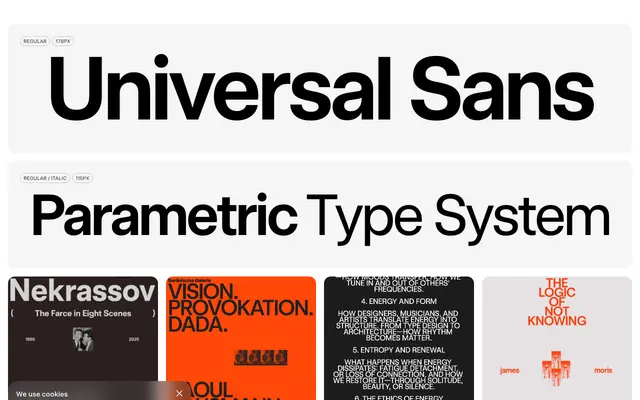
Universal Sans
A parametric sans-serif system by Briton Smith, split into Display and Text optical sizes with broad Latin language support.
Universal Sans is structured as a two-family system, with separate Display and Text cuts each offering 12 styles, designed to maintain precision across contexts from headlines to body copy. Briton Smith frames it as a parametric type system, emphasising measurable, system-oriented thinking in its design logic. Language support spans an unusually wide range of Latin-script languages, covering African, Nordic and Central European writing systems among others.
Universal Sans presents clean, neutral letterforms with geometric construction and no visible calligraphic influence. The Display and Text optical sizes and its parametric framing reinforce a systematic, geometry-led approach.